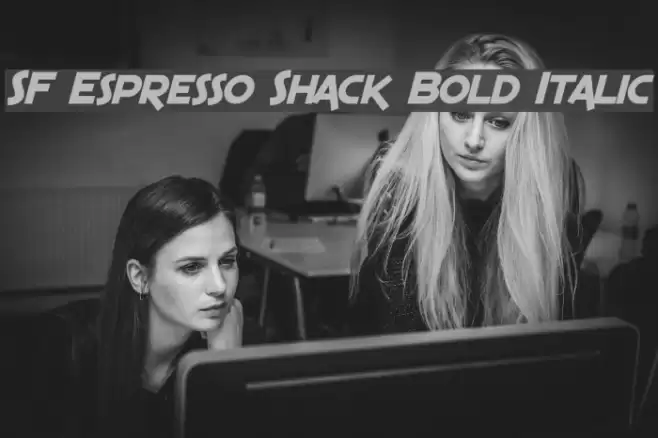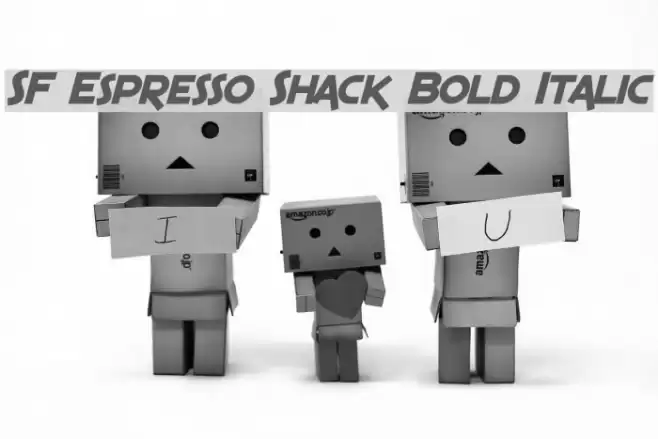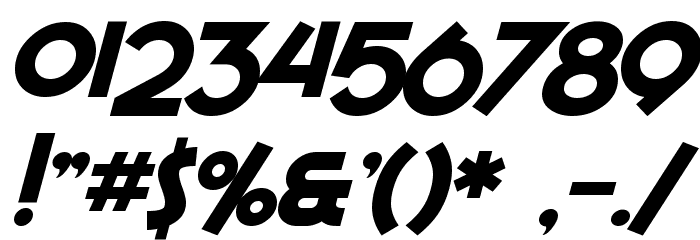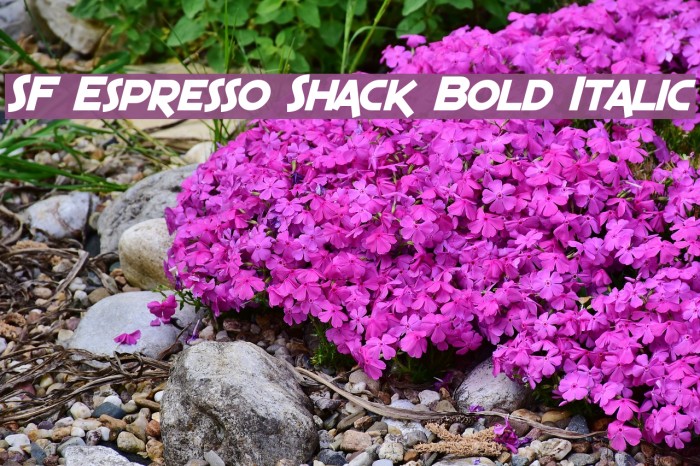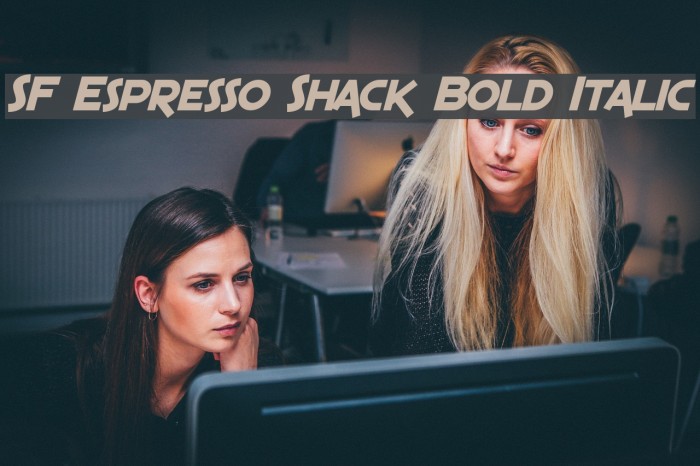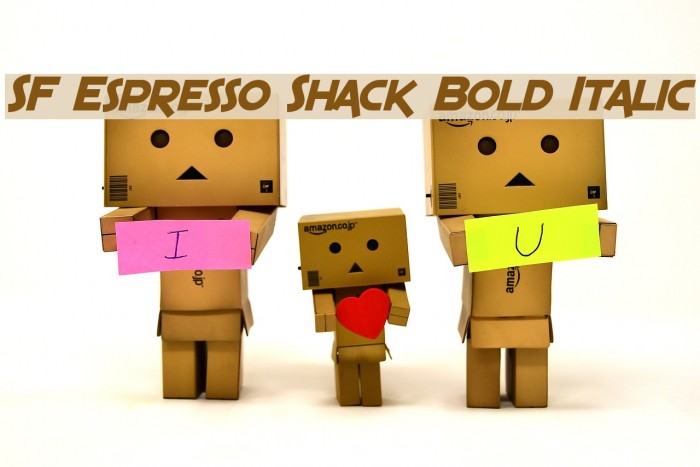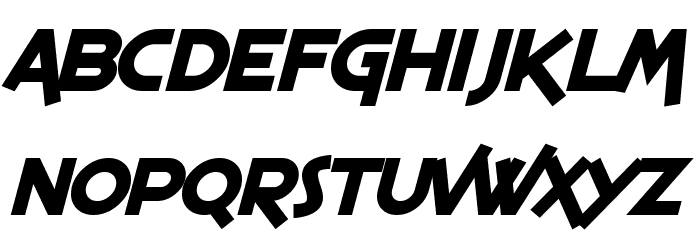
SF Espresso Shack Bold Italic Font
SF Espresso Shack Bold Italic Description
This font features a bold and italicized style with a dynamic and energetic appearance. The characters are slanted, giving a sense of motion and speed, which is enhanced by the bold weight. The strokes are thick and consistent, providing a strong visual impact. The design includes sharp angles and clean lines, contributing to a modern and edgy look. The uppercase and lowercase letters maintain a cohesive style, while the numerals and special characters are designed to complement the overall aesthetic. This font is suitable for projects that require a bold statement and a contemporary feel.
A bold, italicized font with a dynamic and modern style from Crazy fonts.
- Proposed Projects: Ideal for branding, advertising, sports team logos, and dynamic headlines.
- Use Case: Headlines, Logos, Branding